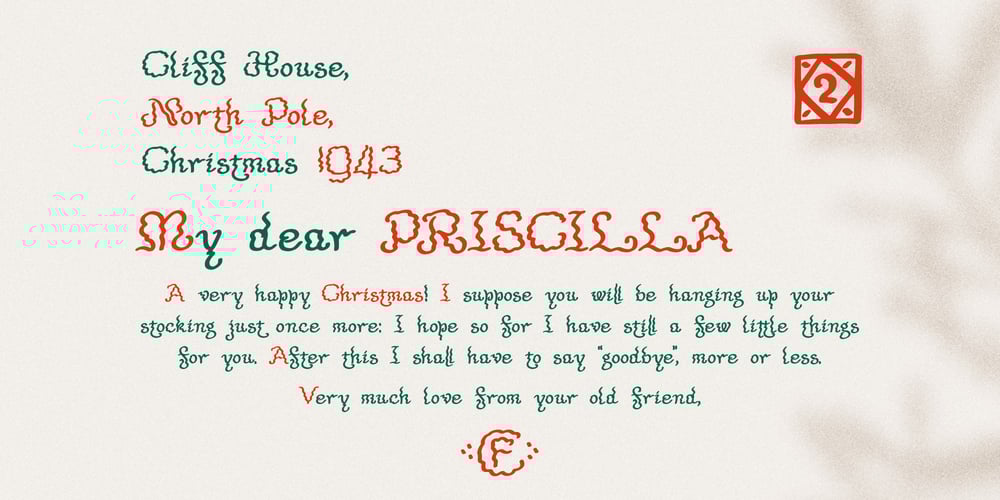
Tolkiens Christmas Font Family was designed by Roman Korolev and published by Kaer. Tolkiens Christmas contains 2 styles and family package options. Hey guys! Once I got a book “Letters From Father Christmas” by J.R.R. Tolkien. He wrote them for the children every December from 1920 to 1943. I totally fell in love with the calligraphy in those letters. Now I created a font and you can use it to write your own letter from the North Pole.I’ve also redrawn stamps and patterns from that book, so you can decorate your blank. It’s Icons font style.You’ll get: Regular and Icons styles Numbers and symbols Multilingual support and alternative symbols Thanks! Feel free to request to add characters you need: kaer.pro@gmail.com